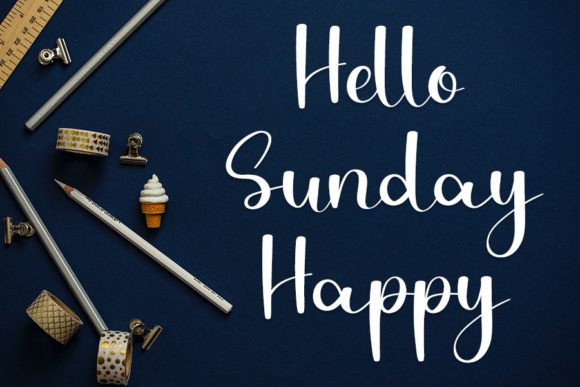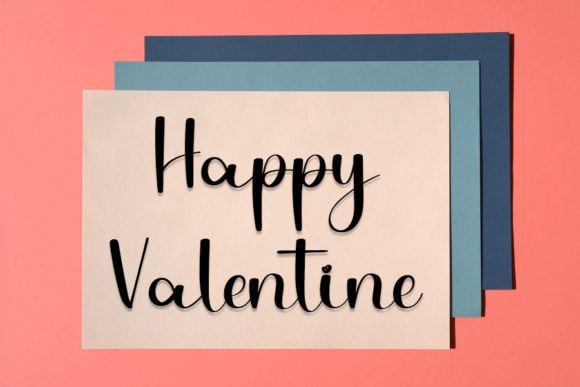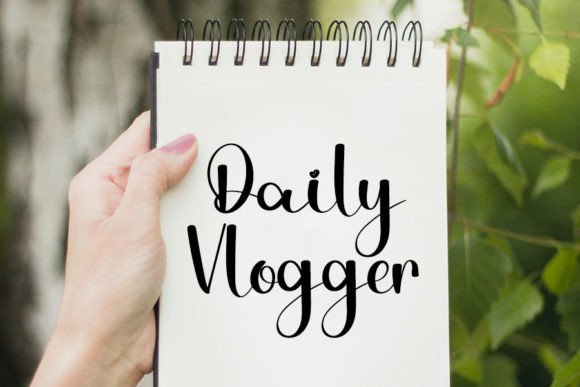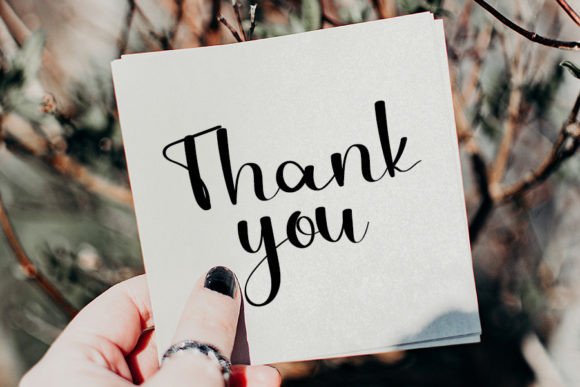
Discover the Elegance of Angels Font: Elevate Your Designs with Timeless Beauty
Are you on the lookout for a font that adds a touch of elegance and sophistication to your projects? Look no further than Angels Font, a stunning handwritten font that is sure to capture your heart. With its unique blend of classic charm and modern appeal, Angels Font is the perfect choice for designers and crafters seeking to create breathtaking designs that stand out from the crowd.
The Beauty of Angels Font
Angels Font is a meticulously crafted handwritten font that boasts an elegant touch, making it an ideal choice for a wide range of projects. From wedding invitations and branding materials to digital products and craft projects, this beautiful font is sure to add a touch of sophistication and refinement to your work.
What sets Angels Font apart is its incredibly distinct and timeless style. The font’s unique character and charm are sure to captivate your audience, making your designs more engaging and memorable. Whether you’re a professional designer or a crafty DIY enthusiast, Angels Font is the perfect tool to help you bring your creative vision to life.
Key Features of Angels Font
So, what makes Angels Font so special? Here are just a few of the key features that make this font a must-have for designers and crafters:
- Handwritten with love: Angels Font is a carefully crafted handwritten font that exudes warmth and personality.
- Elegant and sophisticated: With its classic charm and modern appeal, Angels Font is perfect for projects that require a touch of elegance and refinement.
- Unique and timeless: The font’s distinct style is sure to make your designs stand out from the crowd and leave a lasting impression.
- Versatile: Angels Font is suitable for a wide range of projects, from wedding invitations and branding materials to digital products and craft projects.
Why Choose Angels Font?
With so many fonts to choose from, why should you choose Angels Font for your next project? Here are just a few compelling reasons:
- Easy to read: Despite its elegant and sophisticated style, Angels Font is incredibly easy to read, making it perfect for body text and headlines.
- Highly versatile: Whether you’re working on a digital project or a print project, Angels Font is the perfect choice.
- Unique and memorable: With its timeless style and classic charm, Angels Font is sure to make your designs more engaging and memorable.
How to Use Angels Font
Using Angels Font is incredibly easy. Here are just a few tips to get you started:
- Pair it with other fonts: Angels Font pairs beautifully with other fonts, making it easy to create stunning font combinations.
- Experiment with colors: The font’s elegant style looks beautiful in a range of colors, from classic black and white to bold and bright hues.
- Use it for headlines and body text: Angels Font is perfect for both headlines and body text, making it a versatile addition to your font collection.
| Font Name | Angels Font |
In conclusion, Angels Font is a beautiful and elegant handwritten font that is sure to elevate your designs to new heights. With its timeless style, classic charm, and incredibly distinct character, this font is perfect for designers and crafters seeking to create breathtaking designs that stand out from the crowd. So why wait? Fall in love with Angels Font today and discover a world of creative possibilities!
Whether you’re working on a wedding invitation, a branding project, or a digital product, Angels Font is the perfect choice. Its versatility, elegance, and sophistication make it an ideal addition to any font collection. So go ahead, get creative, and see what amazing designs you can create with Angels Font!